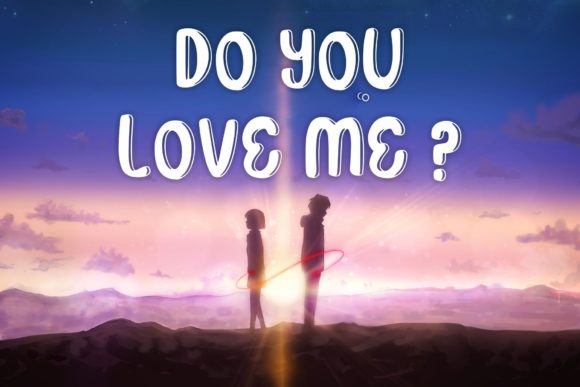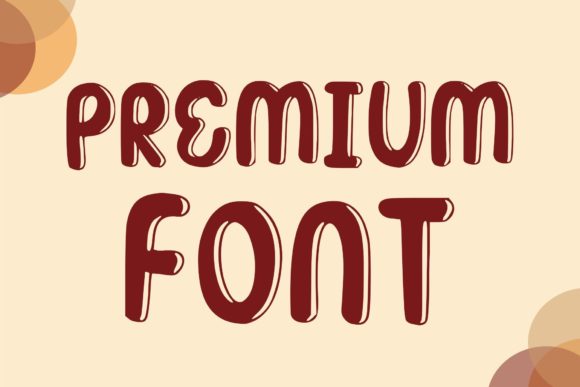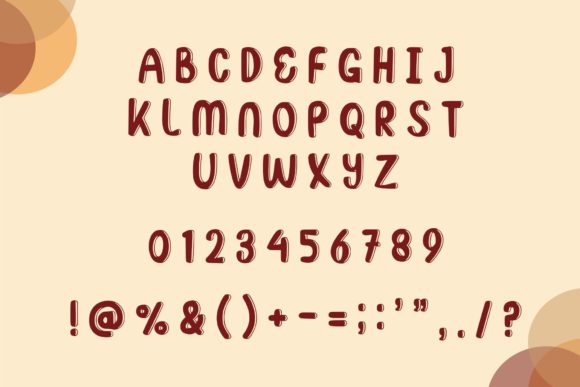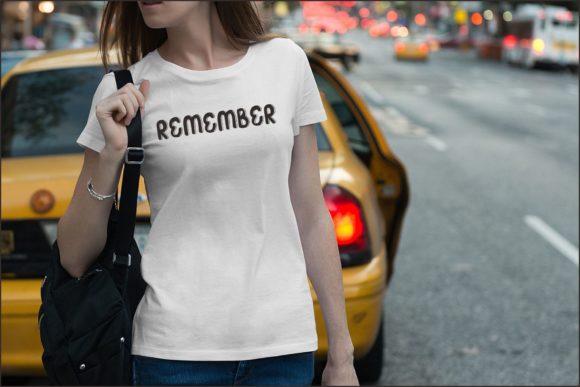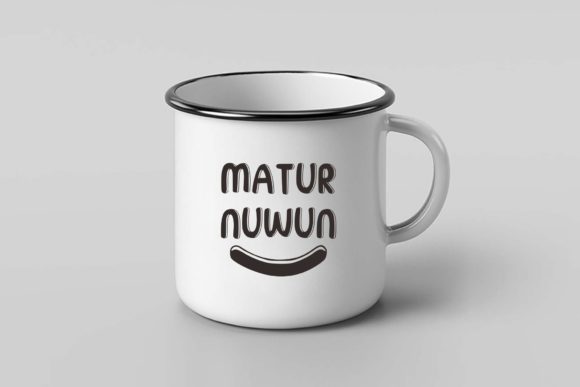
Introduction to Freeday Romance Font
Freeday Romance is a childish display font.
Its informal style and casual feel make it a top choice for any creation that requires a touch of fun It will look beautiful on product packaging, t-shirts, labels, posters, logos and anything else you want to develop.
Key Features of Freeday Romance Font